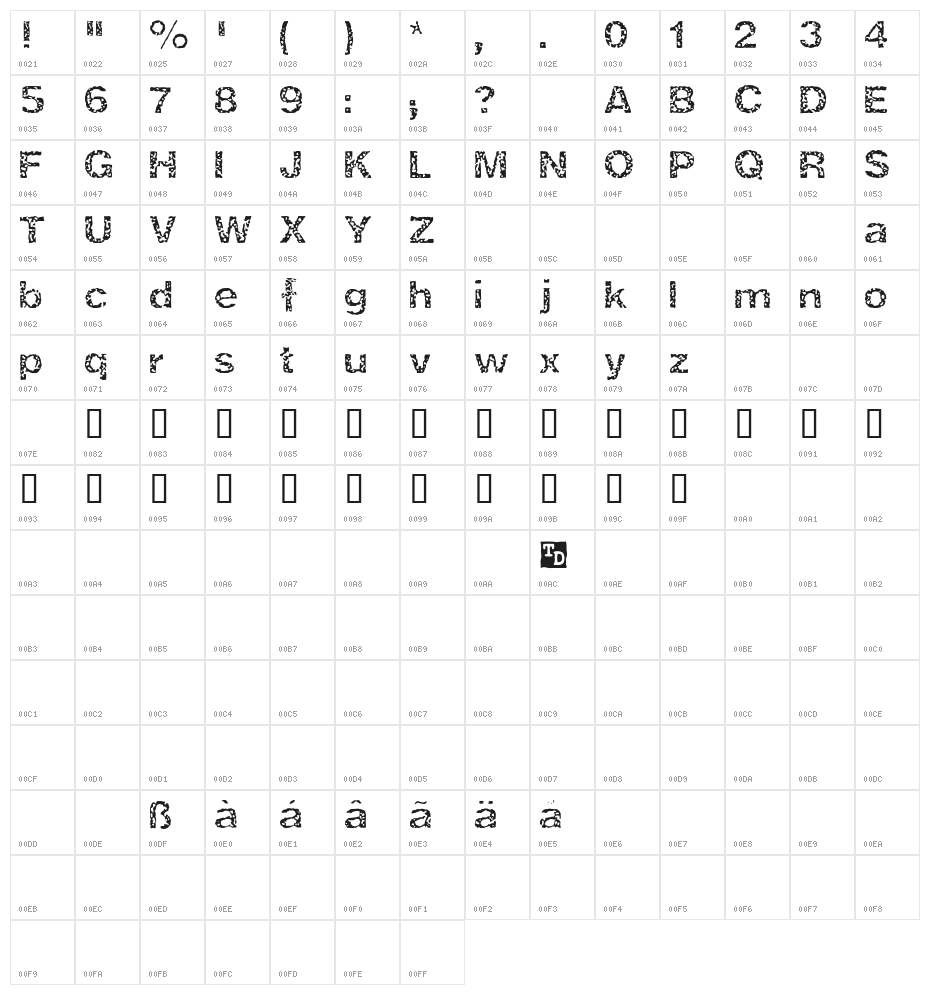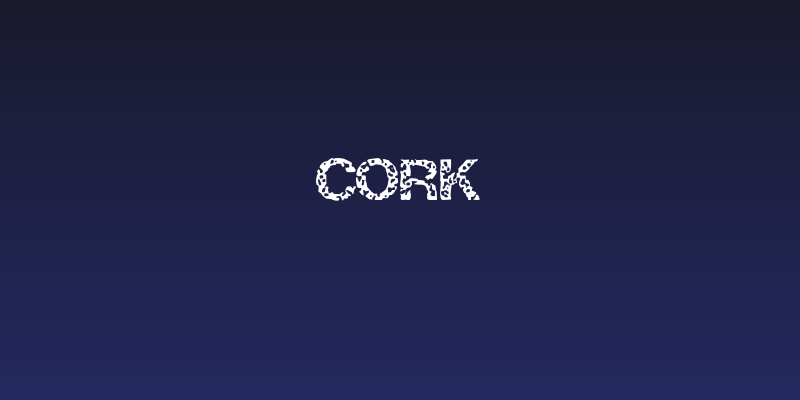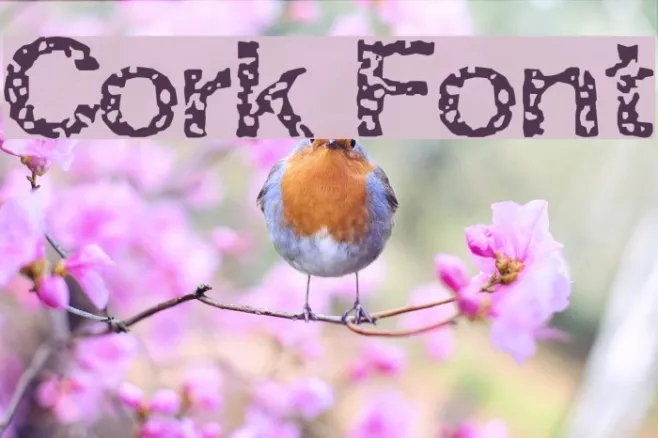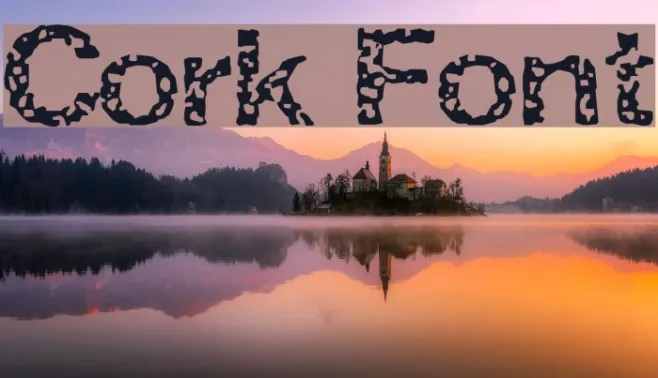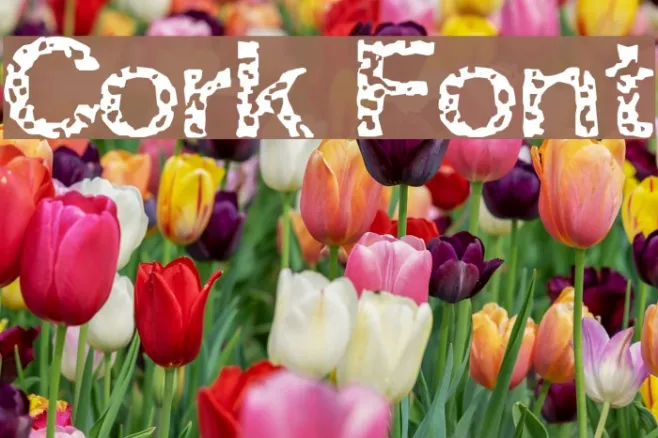
Cork Font
Cork Description
This font features a unique, textured design that resembles a cork pattern. Each character is filled with irregular, organic shapes, giving it a distinct and playful appearance. The font maintains a bold and sturdy structure, making it stand out while still being legible. The uppercase and lowercase letters are consistent in style, with rounded edges and a slightly condensed form. Numbers and special characters follow the same design principles, ensuring a cohesive look across all elements. This font is ideal for creative projects that require a touch of whimsy and originality.
| Proposed Projects | Ideal for branding, packaging, posters, and any design work that benefits from a playful and unique aesthetic. |